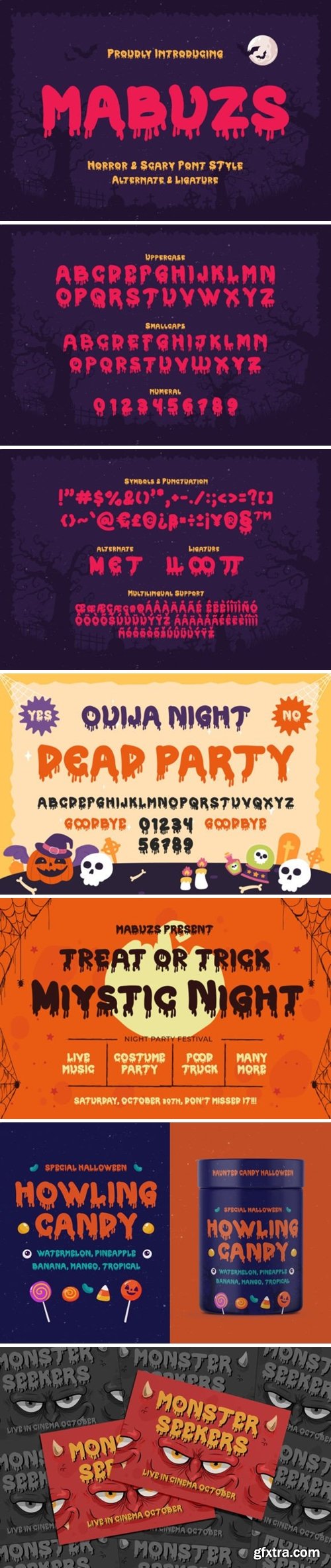
Mabuzs Font
With its twisted and chilling letterforms, “Mabuzs” embodies the essence of horror, bringing your darkest nightmares to life. Each letter is meticulously crafted to evoke a sense of dread and unease, making it perfect for horror movie titles, haunted house flyers, spooky designs, and more.
Great Friday Font
Great Friday is a stylish and eye-catching display font that belongs to the Sans Serif family. With its sleek and modern letterforms, this font exudes a sense of sophistication and elegance. Each character is meticulously crafted, featuring clean lines and balanced proportions. Great Friday is perfect for creating impactful headlines, logos, branding materials, and any design project that requires a touch of contemporary style. Its versatility and legibility make it a go-to choice for designers seeking a refined and polished look. Elevate your designs with Great Friday and make a lasting impression.
Respati Font
Introducing Respati: A Modern Kufic Calligraphy Font. Respati is an exquisite and captivating typeface that beautifully merges the timeless elegance of Kufic calligraphy with a modern twist. With its distinct and sophisticated design, Respati is the perfect choice for adding a touch of refinement to your projects.
Introducing the sophistication of modern typography with Vancouver - Condensed Display. This font embodies the essence of modernity, allowing your words to command attention on every page. Its condensed form and contemporary design make a striking impression, while maintaining readability and professionalism. Whether it's fashion magazines, cutting-edge websites, or sleek branding materials, Vancouver confidently stands out, commanding attention with its modern editorial flair. Let your creativity soar with a font that embodies the essence of modernity and sets your designs apart from the rest.